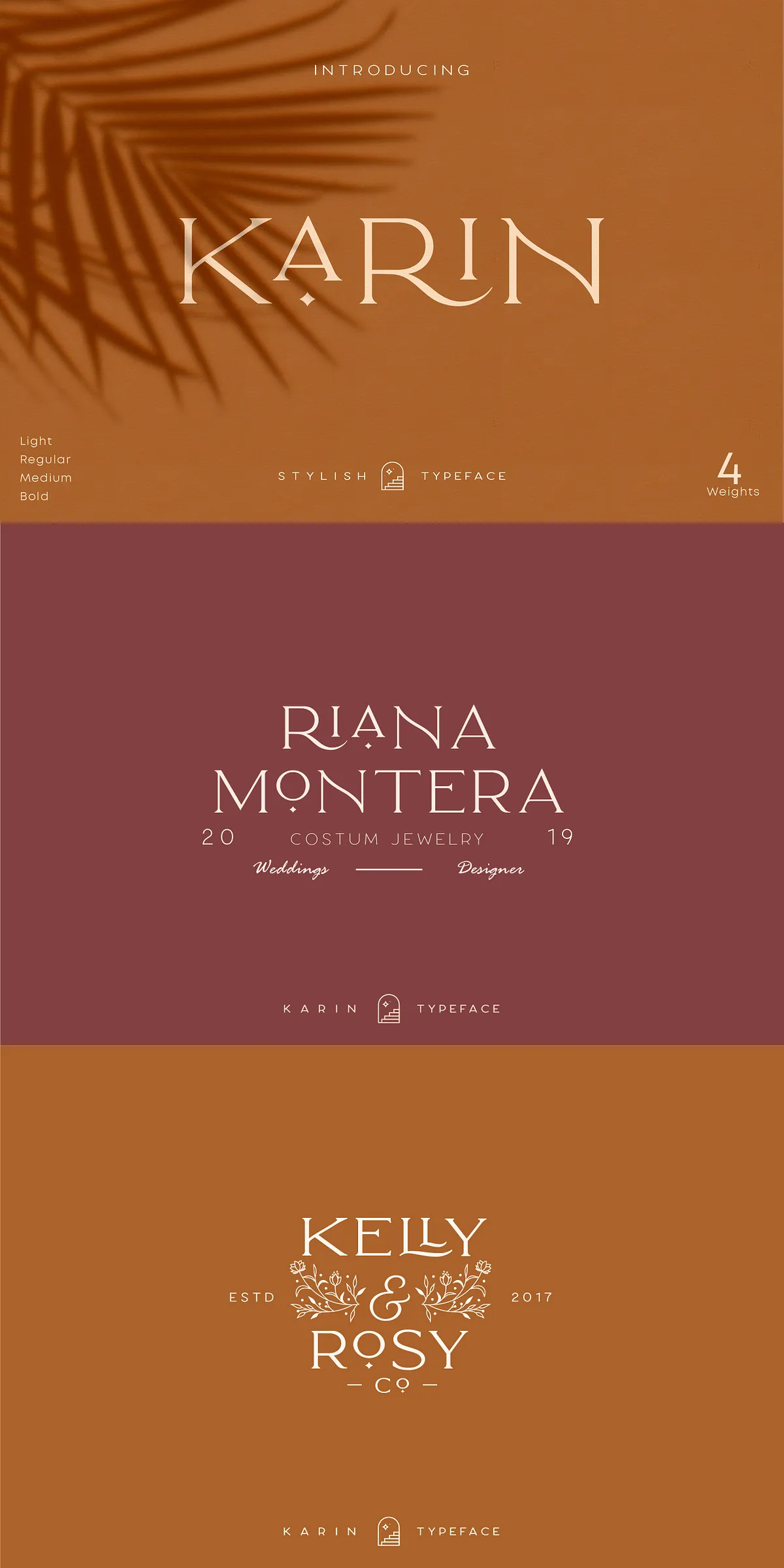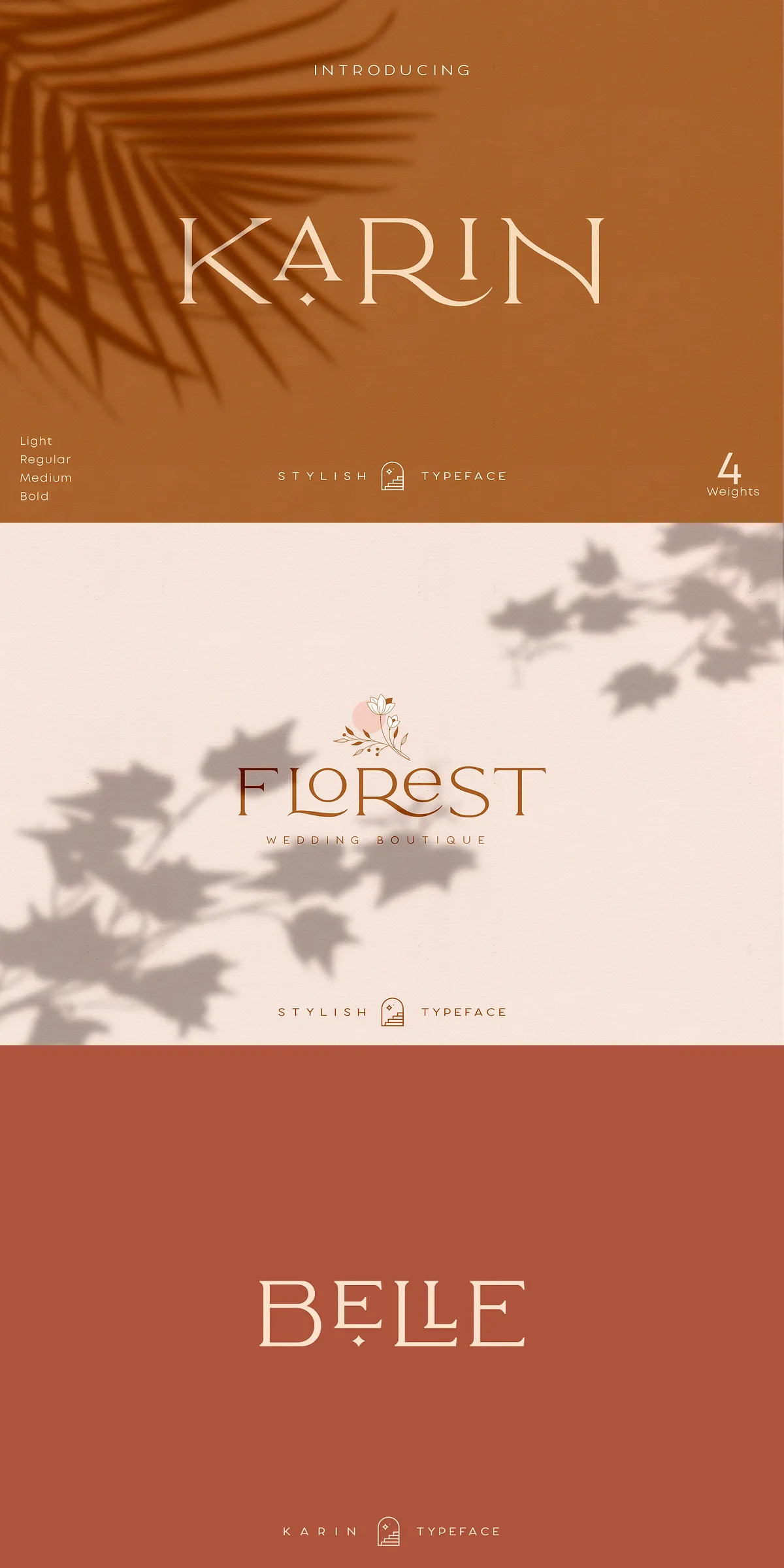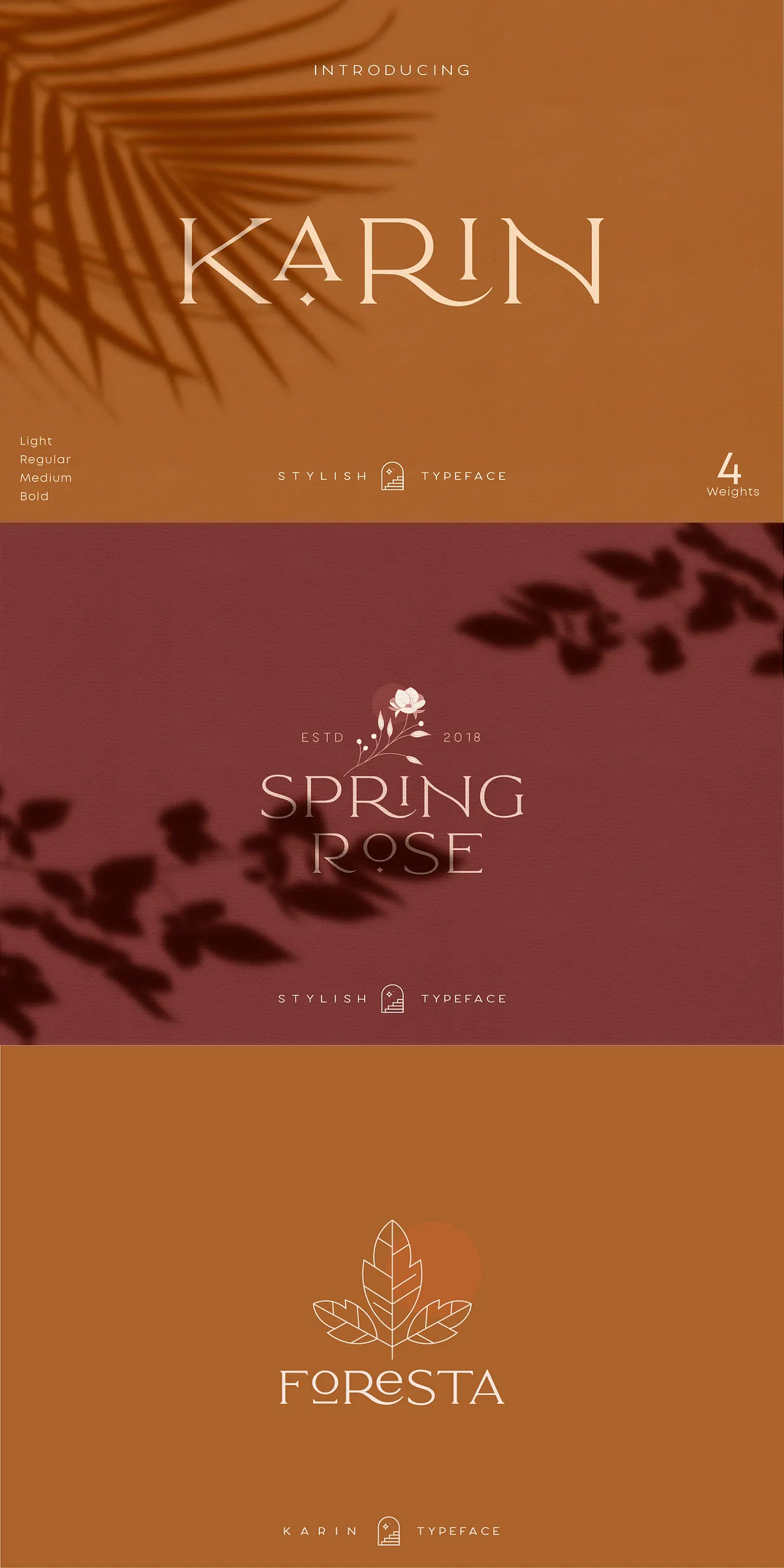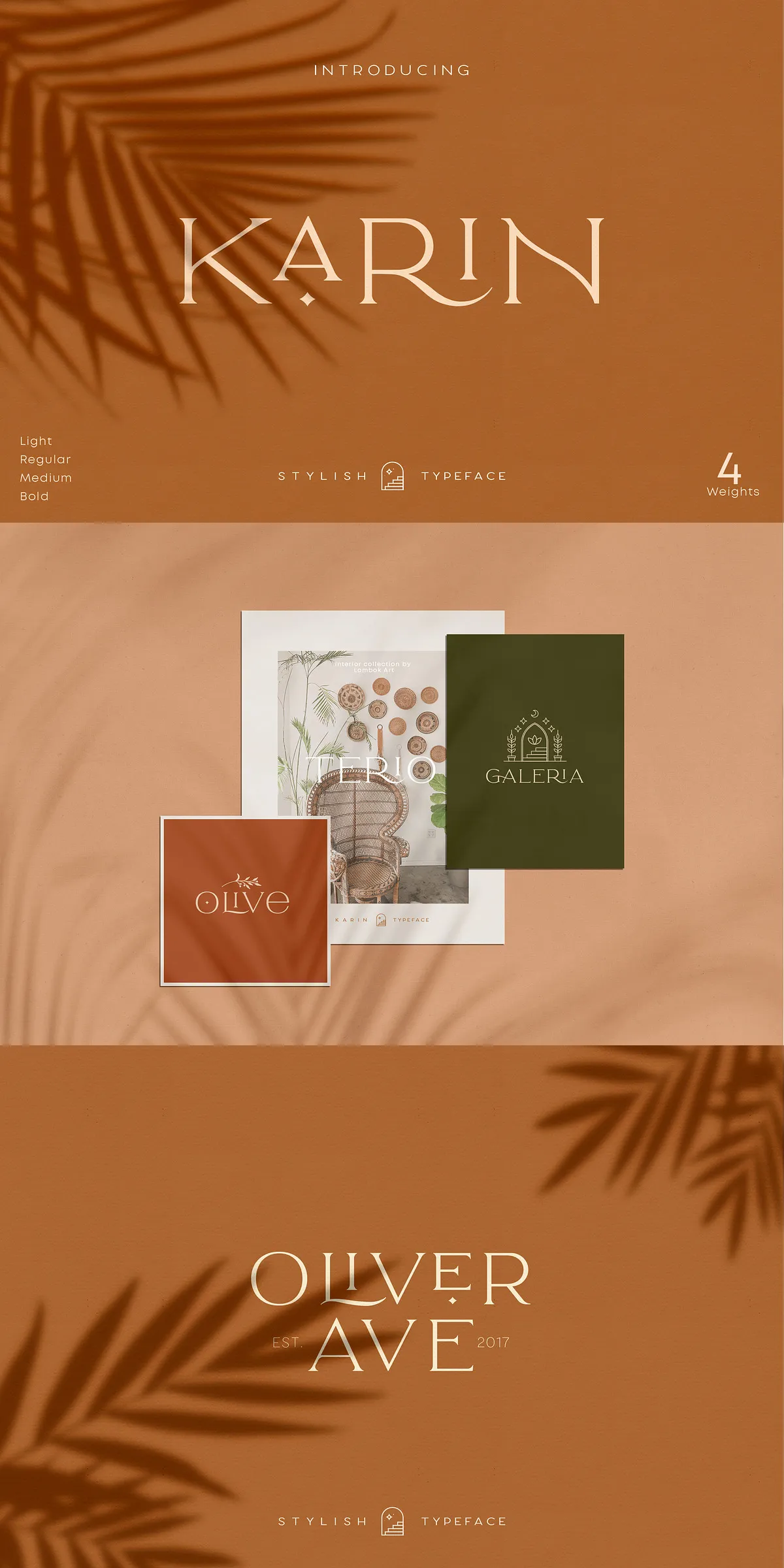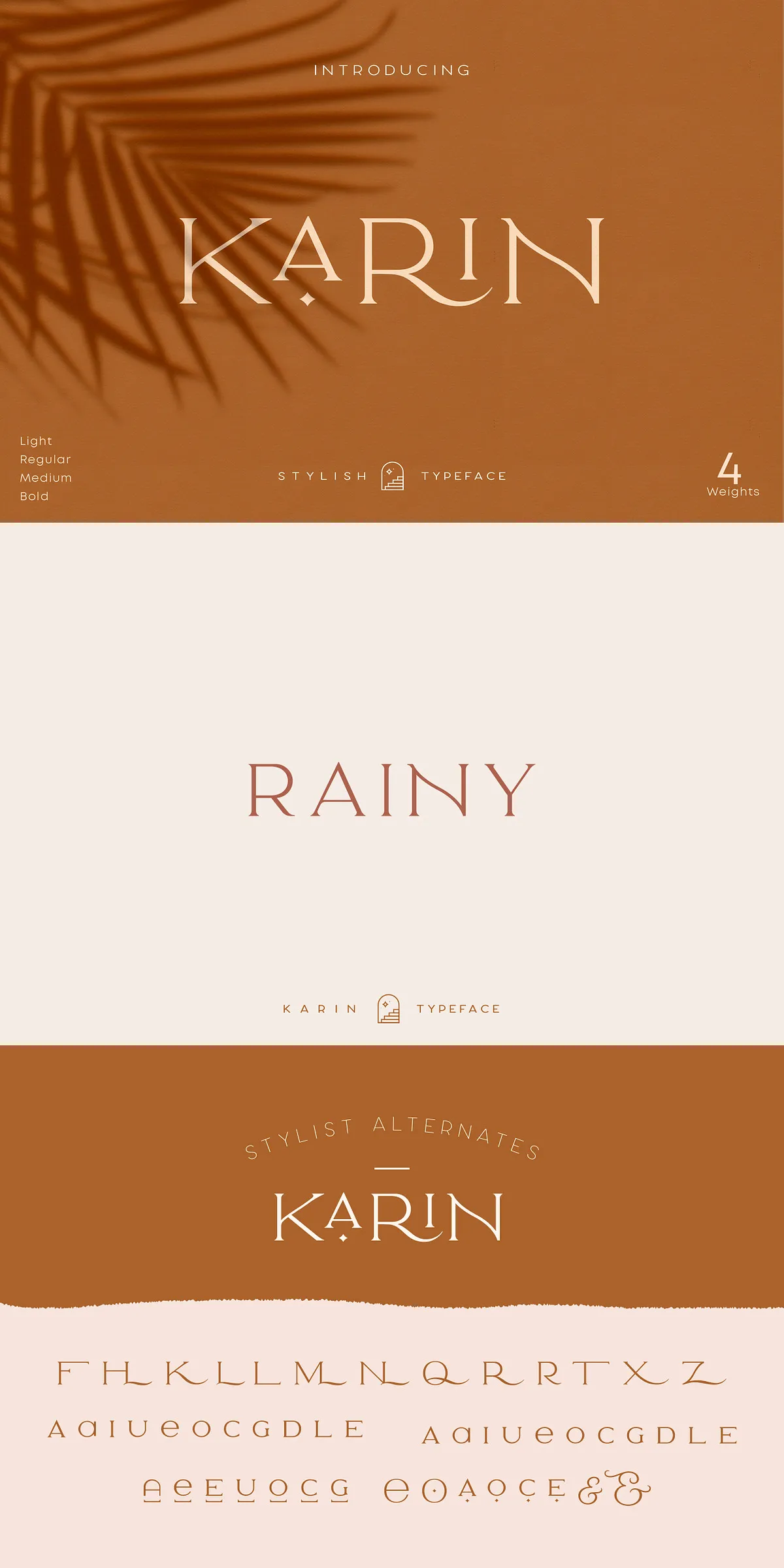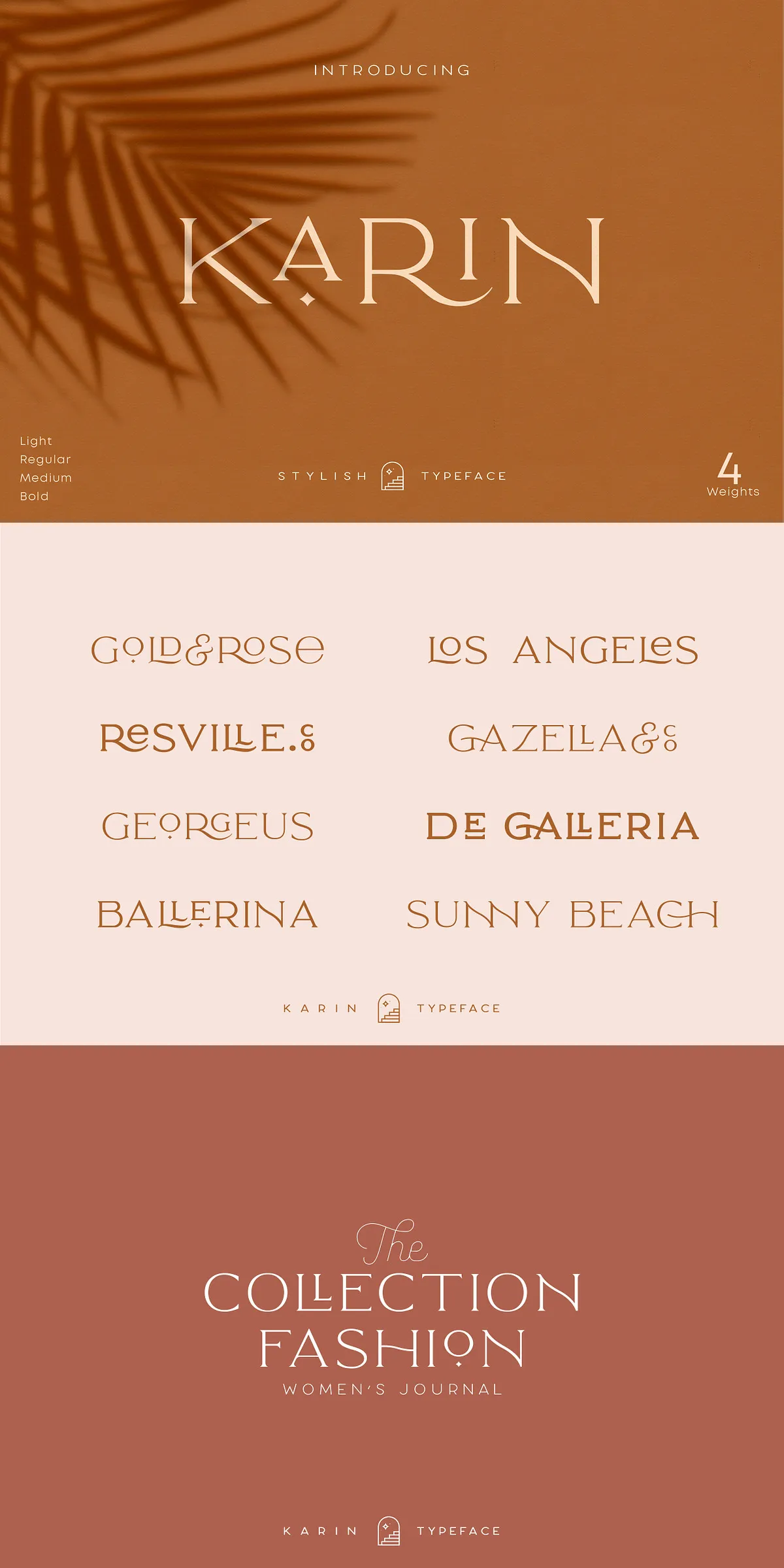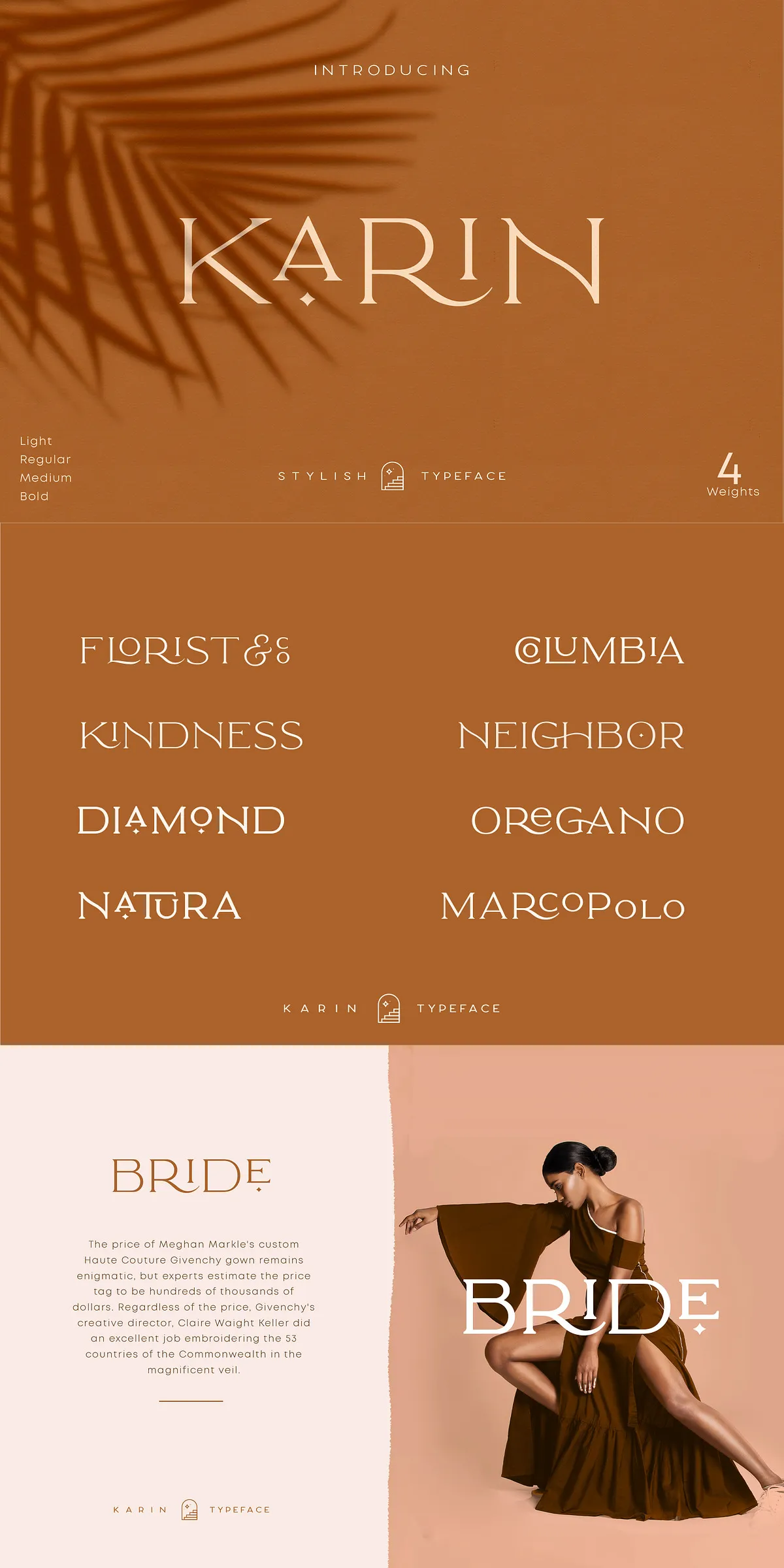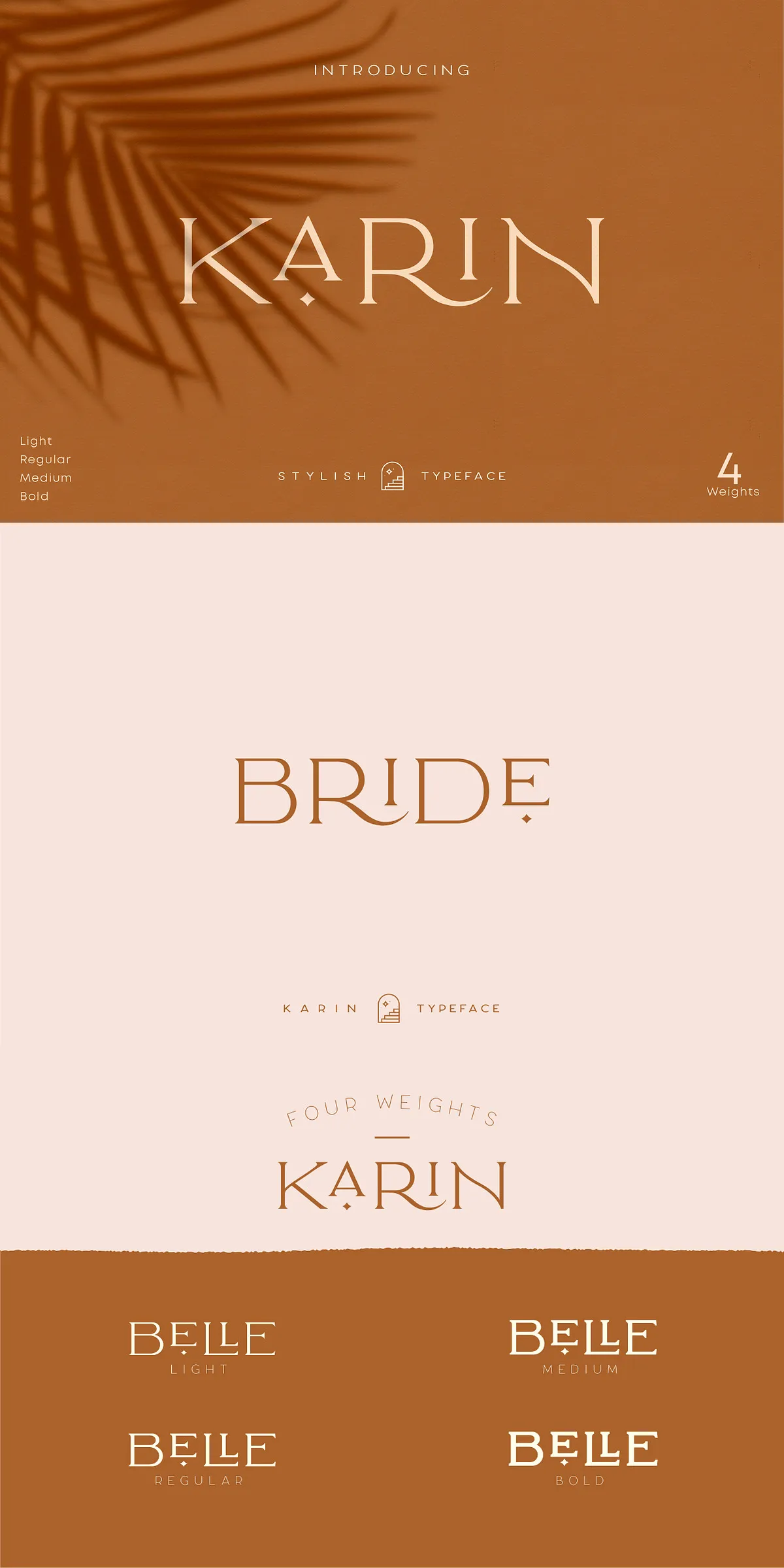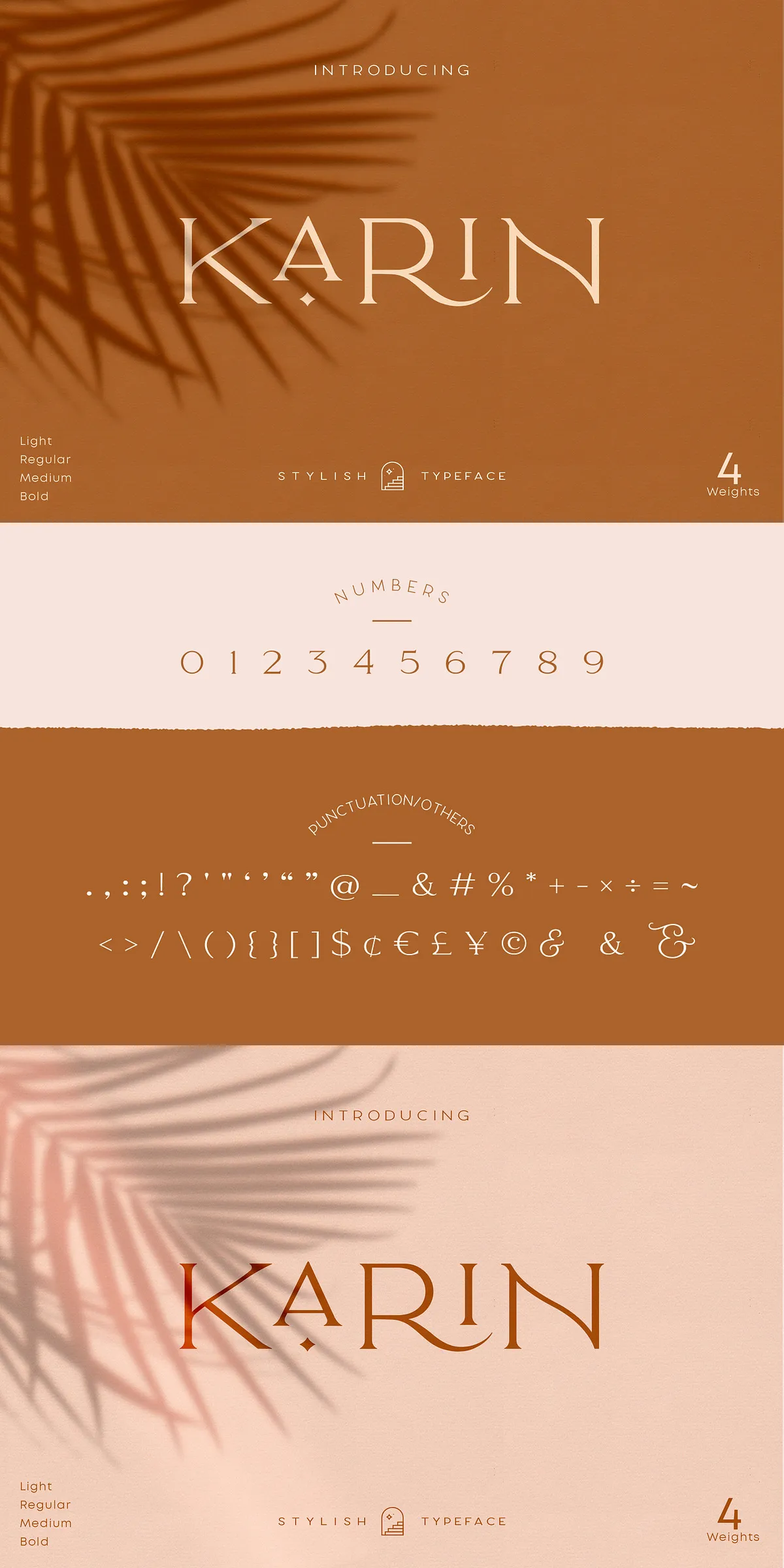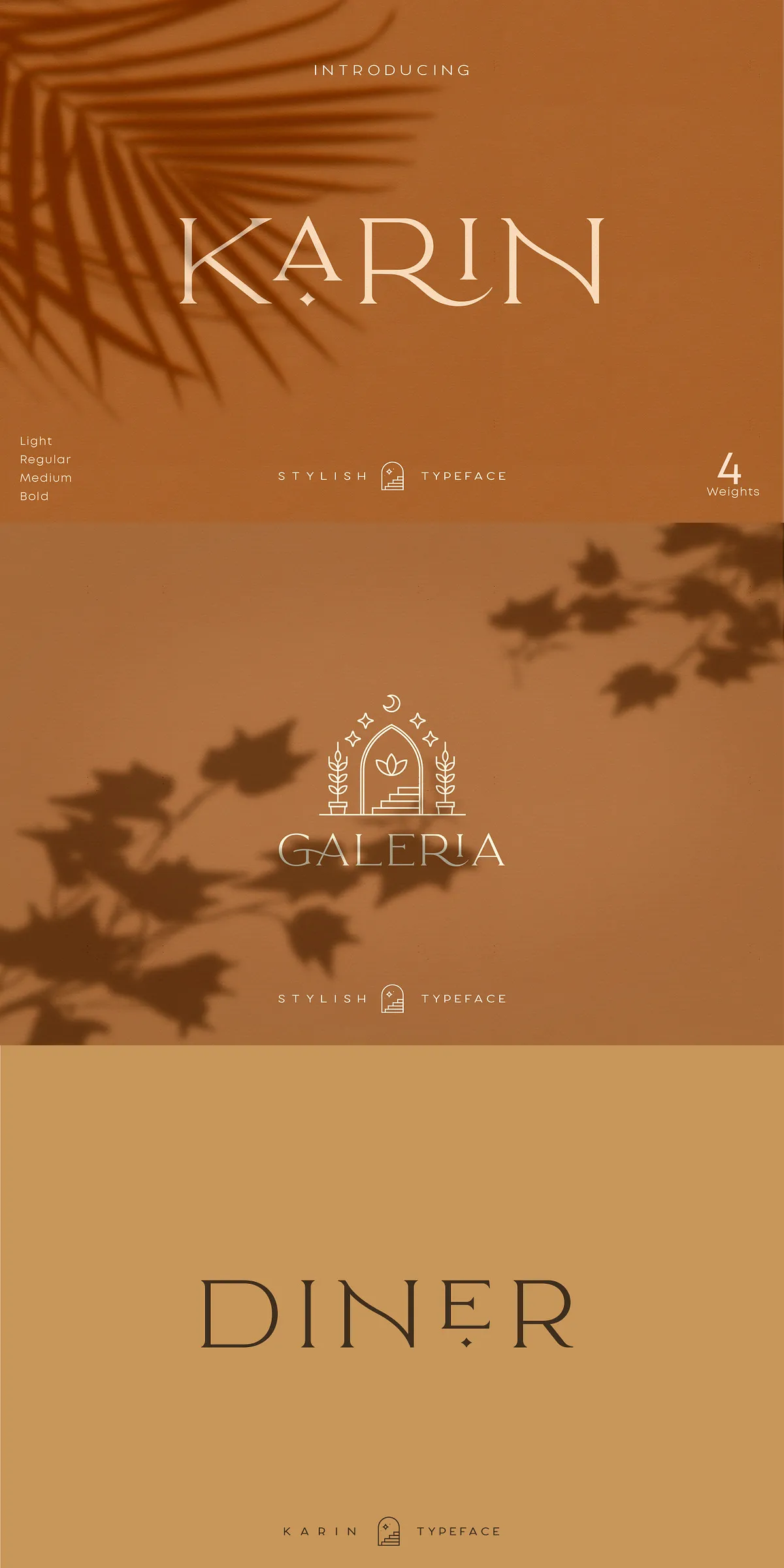
Elegant Karin – Stylish Typeface
Step into refined elegance with Elegant Karin — a meticulously crafted minimalist vintage font that redefines modern serif sophistication. Merging clean lines with subtle classic charm, this typeface delivers a bold yet understated presence. Whether you’re designing a luxury brand, a high-end product label, or a fashion-forward magazine cover, Elegant Karin commands attention with quiet confidence and undeniable style.
Why Elegant Karin Stands Out in a Crowd
Beyond its minimalist aesthetic, Elegant Karin is engineered for creative power. Every character is designed with precision — from the delicate stroke transitions to the balanced spacing — ensuring exceptional clarity and visual harmony at any size. From tiny icons to massive headlines, it maintains sharpness, elegance, and readability.
With four distinct weights, you gain full control over hierarchy and emphasis. Use the Light weight for subtle accents, the Regular for clean body text, Medium for balanced headlines, and Bold for maximum visual impact. No matter your project’s tone, Elegant Karin adapts — delivering versatility without compromise.
Unlock Full Creativity with Advanced Typography Features
Elegant Karin isn’t just a font — it’s a designer’s toolkit.
• Stylistic Alternates — Swap out standard characters for refined, unique alternatives to add personality and visual interest to your text.
• Ligatures — Experience seamless flow and elevated beauty in words like “fi”, “fl”, “ffi”, and more — automatically activated with OpenType support.
• Ornament Glyphs — Sprinkle elegant flourishes and decorative elements into your designs for luxury branding, invitation suites, or editorial layouts.
• Full Accented Characters — Support for over 90 languages, including French, German, Spanish, Italian, Polish, Dutch, and Portuguese, ensures your message lands perfectly across cultures.
• Full Numerals & Punctuation — From old-style figures to modern tabular numbers, you have complete control over how numbers and symbols appear in your layout.
Designed to Conquer Every Creative Project
Elegant Karin thrives across industries and formats. Here’s how it transforms your work:
For Branding & Logo Design
Create identities that exude timeless grace. Use Elegant Karin for logo typefaces in fashion, beauty, lifestyle, and artisanal brands. Its minimalist structure gives a premium feel, while subtle vintage cues evoke heritage and authenticity — perfect for brands that value sophistication over flamboyance.
For Clothing & Product Branding
Apply Karin to apparel labels, taglines, and packaging to elevate perceived quality. The clean, high-contrast forms remain legible even on small labels, while the ornamental glyphs add a curated, premium touch.
For Magazine Headers & Editorial Design
Use Elegant Karin in headlines, pull quotes, and mastheads to create a refined, editorial-grade aesthetic. Its subtle elegance enhances readability while adding visual depth to layouts — ideal for fashion, design, and culture magazines.
For Text Overlays & Visual Content
Use Elegant Karin as stylish text overlays on background images — from Instagram posts to video thumbnails. Its legibility at small sizes and visual elegance make it ideal for creating polished, professional-looking visuals that stand out.
Your Complete Elegant Karin Family: 4 Weights, Infinite Possibilities
With four carefully balanced weights, you get the full spectrum of typographic expression:
• Elegant Karin Light – Delicate and refined, perfect for subtle accents and elegant headings.
• Elegant Karin Regular – The standard, balanced weight ideal for logos and body text.
• Elegant Karin Medium – Slightly bolder, ideal for strong headlines and visual impact.
• Elegant Karin Bold – Powerful and confident, designed for maximum presence in large-scale projects.
Each weight maintains the font’s signature clarity, harmony, and typographic integrity — ensuring consistency across your entire design ecosystem.
No longer settle for generic fonts that blend into the background. With Elegant Karin, you’re not just choosing a typeface — you’re choosing a design philosophy built on minimalism, elegance, and timeless appeal.
Elegant Karin. Where minimalism meets majesty.